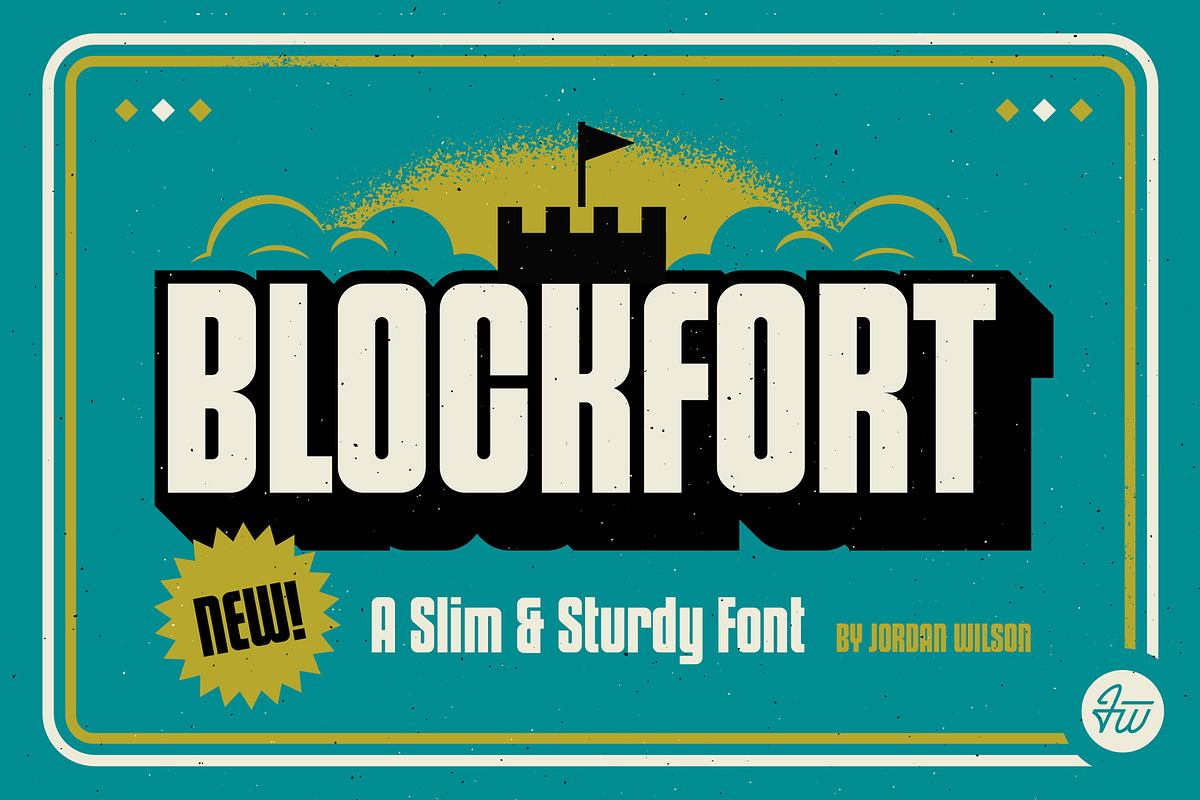
BLOCKFORT | Condensed Font Free Download is a bold, tightly spaced sans-serif typeface designed for maximum impact in minimal space. Ideal for headlines, posters, packaging, and modern branding, this font delivers strength, clarity, and confidence in every character.
With its clean lines and condensed structure, BLOCKFORT | Condensed Font Free Download is perfect for designs that demand attention without overwhelming the layout. Whether you're creating bold typographic compositions or stylish product labels, BLOCKFORT offers a strong visual presence while remaining highly readable. Try it out in your next project and see how it commands space—then upgrade to a commercial license when you're ready to go live.